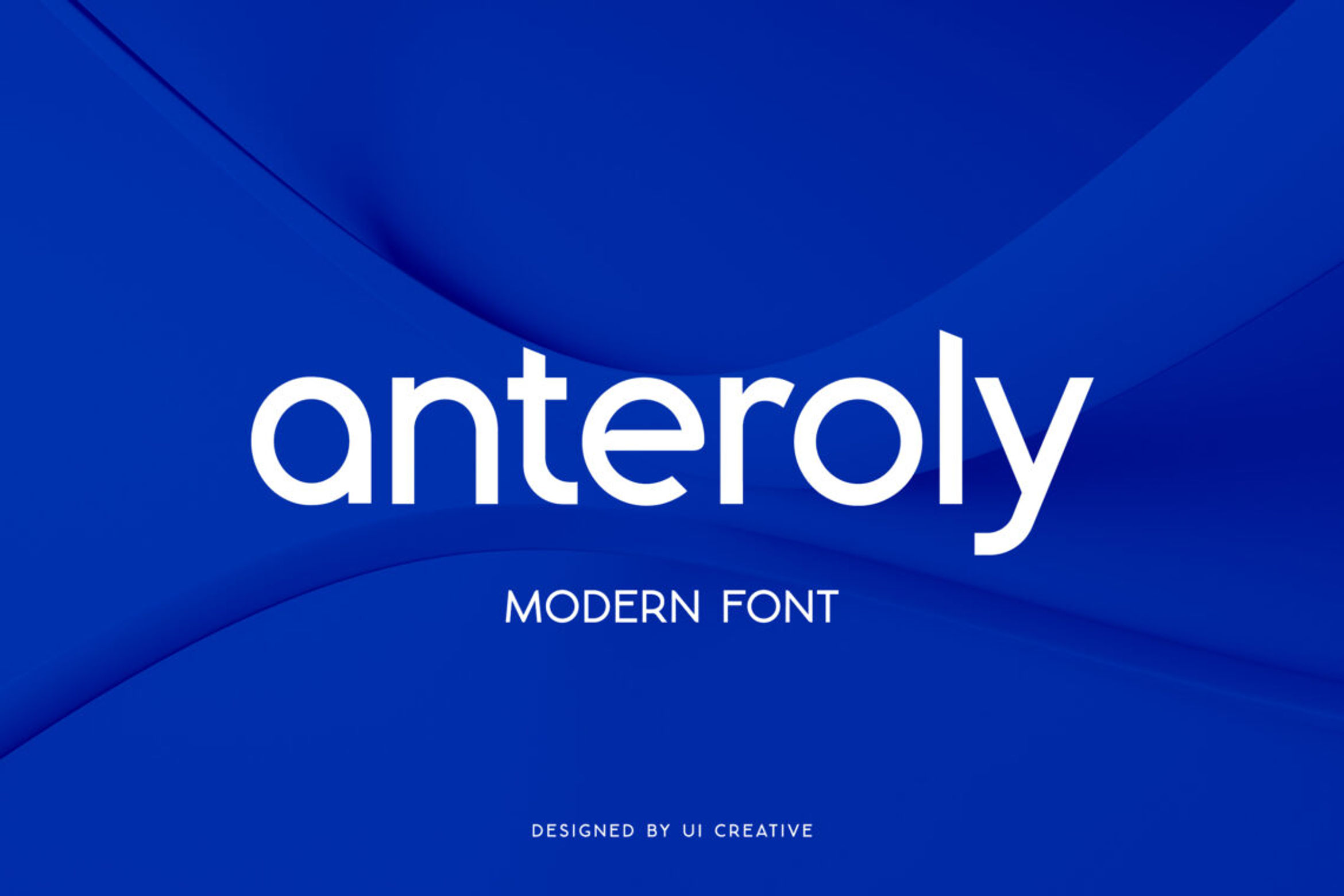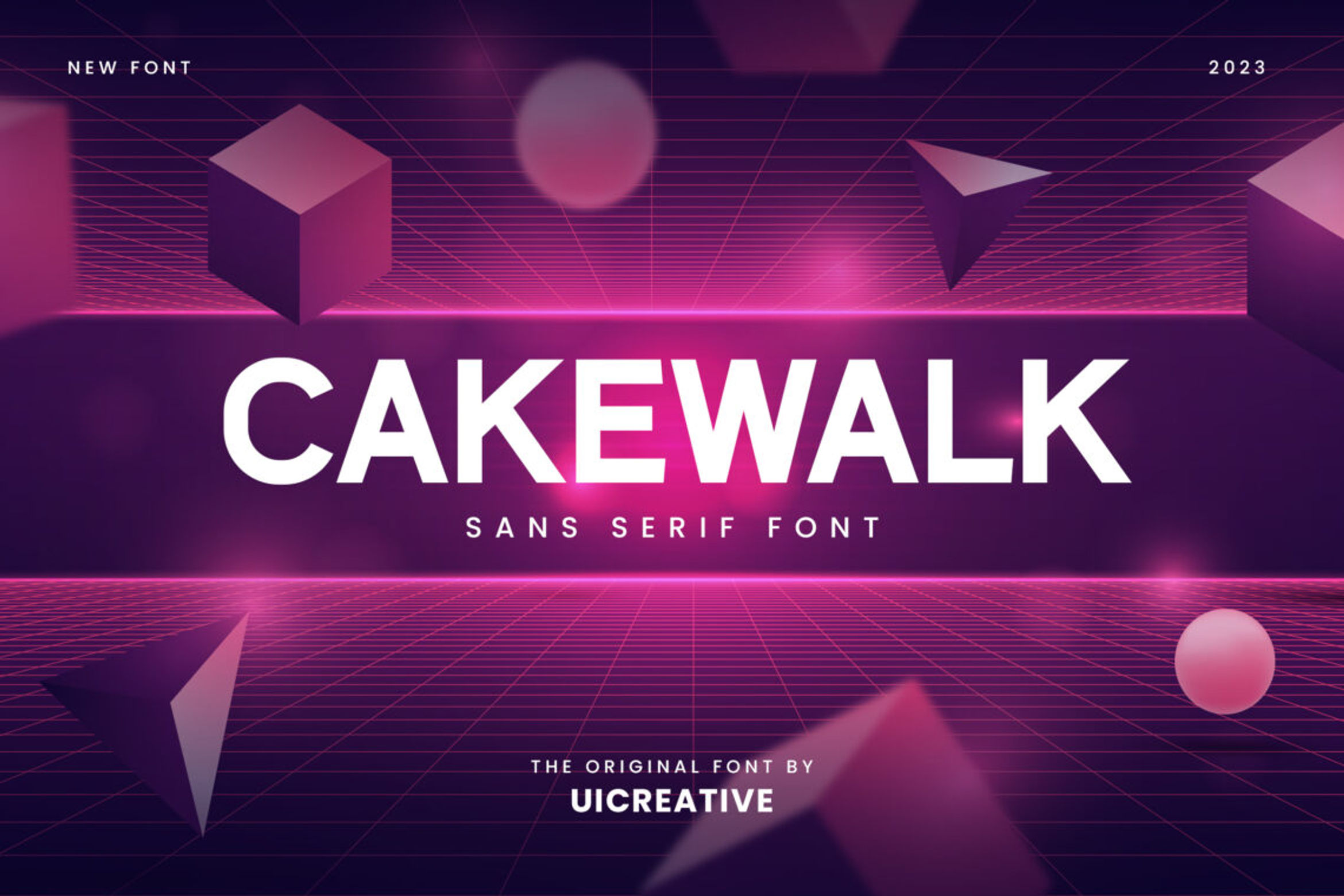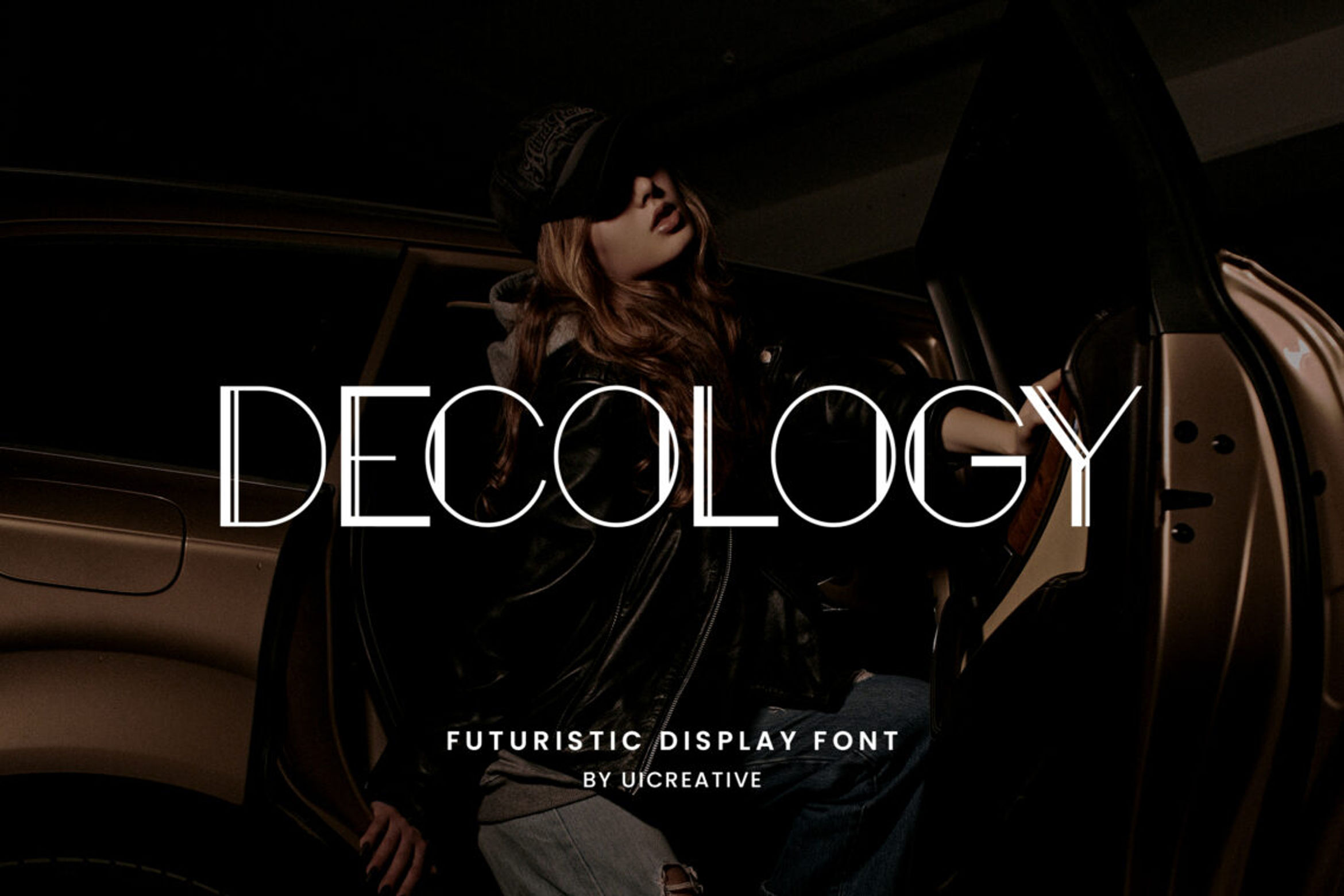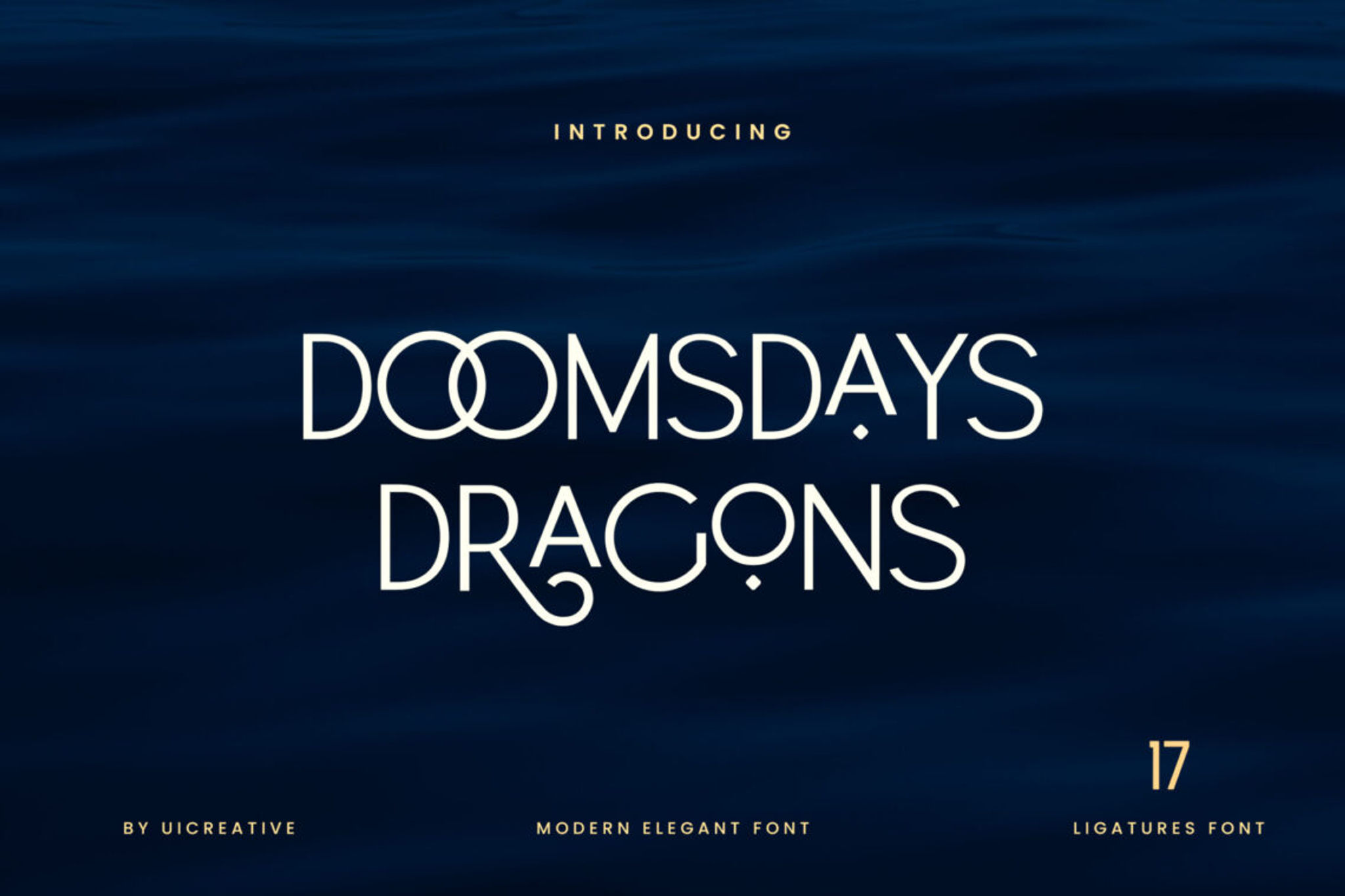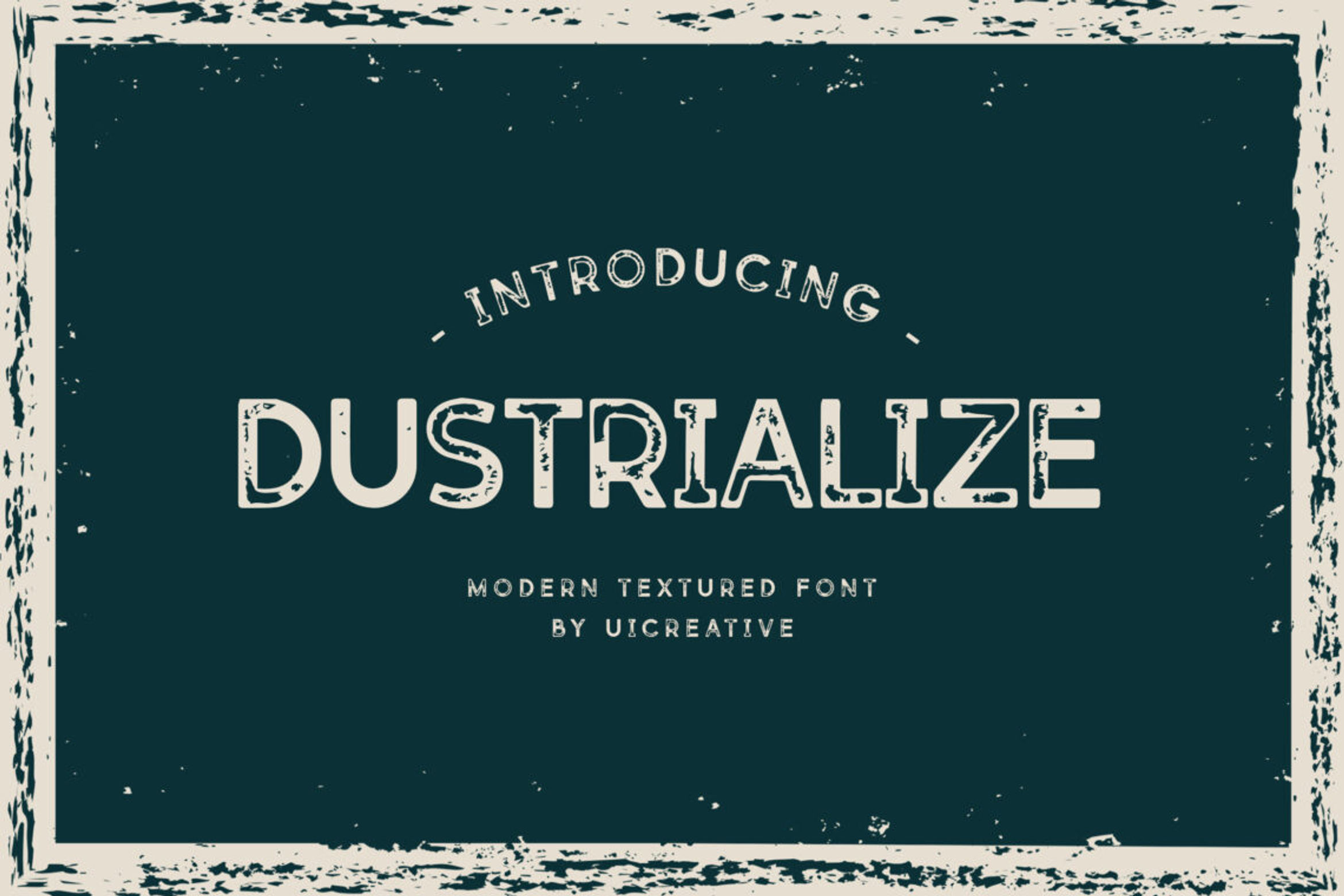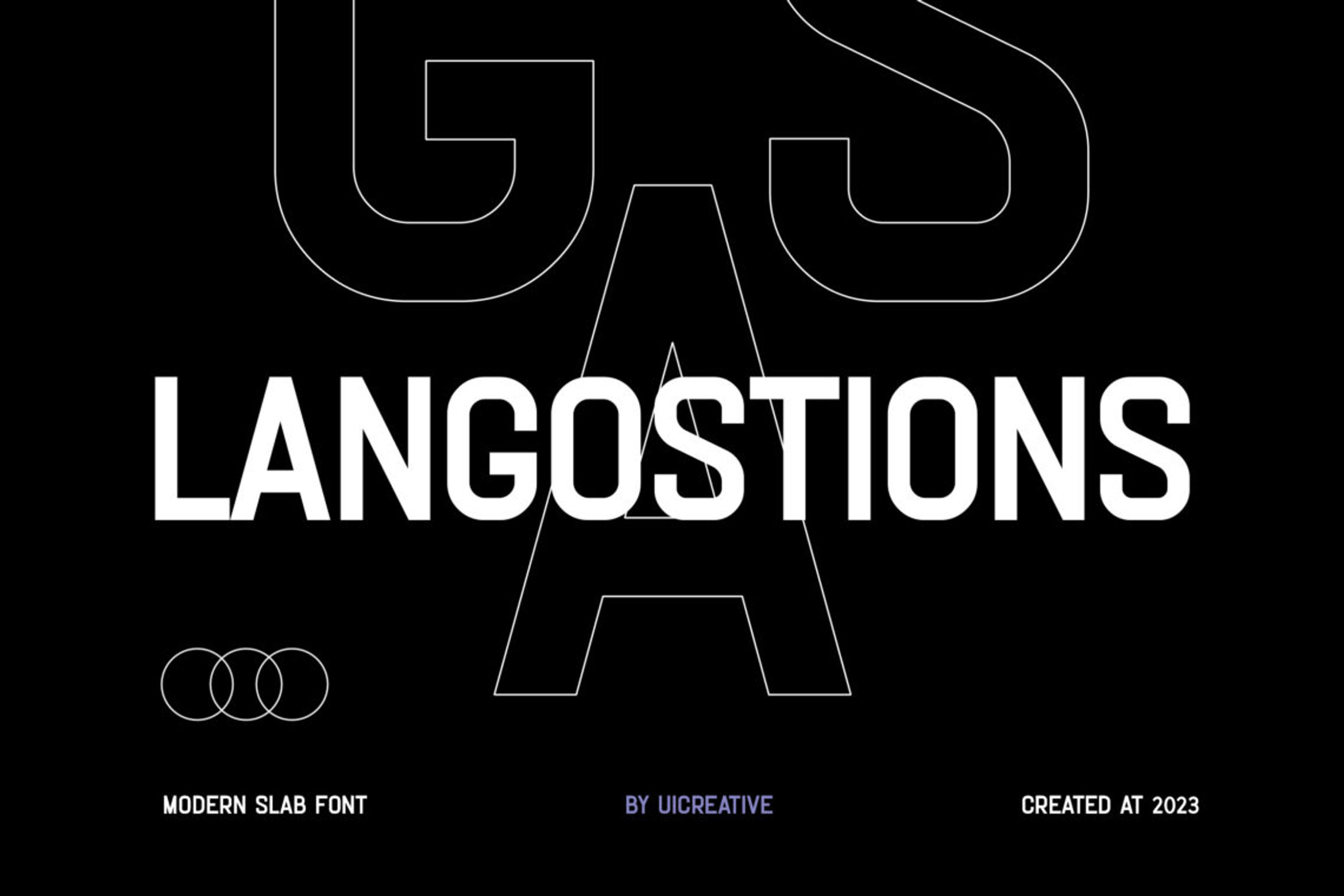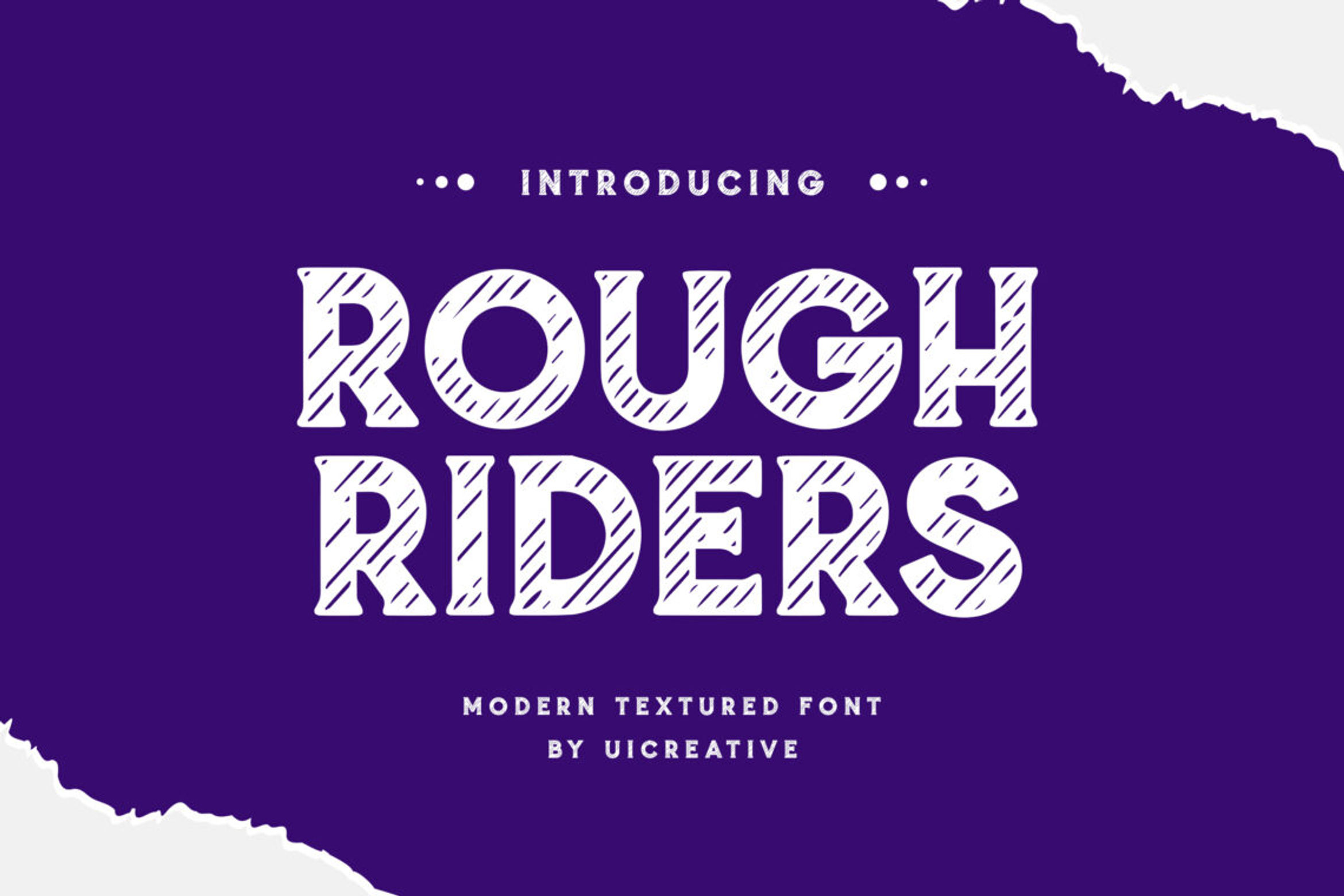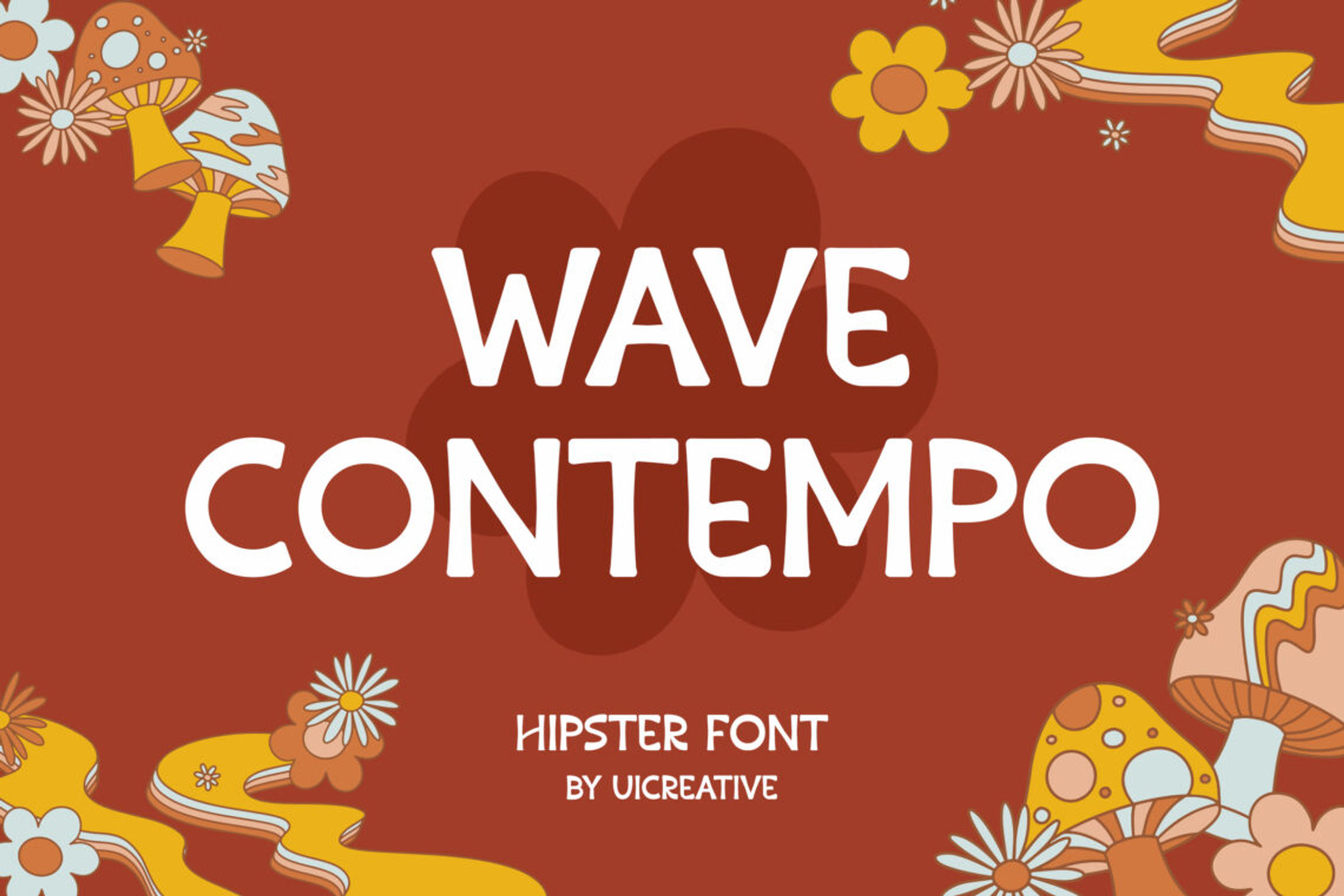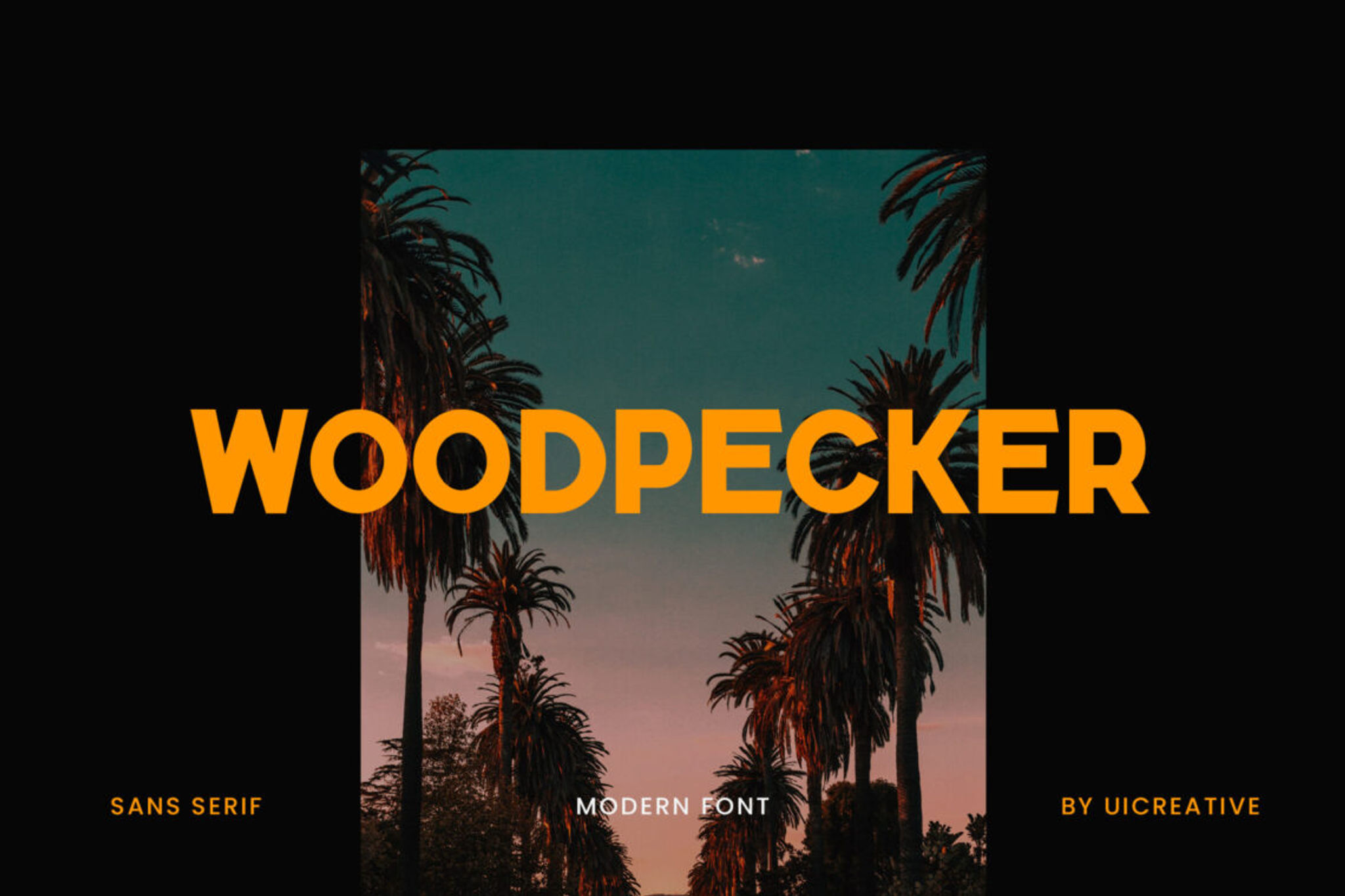
15 Best Summer Font 2023 For Your Projects
What comes to mind when you hear the word “Summer?” Whether it’s the pleasant weather, the joy you have at picnics and barbecues, or the ice cream. Imagine if you were able to transmit these cherished experiences through your artwork. Yeah, and that is also a beautiful summer vibes font you can use. This post compiles the 15 finest summer fonts for designers, bloggers, and photographers. Some of these fonts come with an abundance of incredible features and graphic components that increase the worth of your design resources.
15 Best Summer Font
What is a good summer font? We have the 15 best summer fonts you can use for your projects! What are they?
1. Bosky Evanish Luxury Sans Serif Font – Summer Font
Bosky Evanish Luxury Sans Serif Font
Get ready to take the design world by storm with this fun-loving summer font combination with both a script font and a humorous sans serif font. Both fonts are included in the package. Bosky Evanish has a gritty and eye-popping style provided by the marker brushstrokes, making it excellent for greeting cards, printing, branding, typography quotations, and other similar applications.
2. Rough Riders Modern Textured Font – Summer Font
Rough Riders Modern Textured Font
Here we have a natural modern textured summer font that has a summer mood look to go along with it. You’ll be able to create fantastic designs with the help of the Rough Riders font, which has a straightforward installation process and remarkable OpenType features. In addition, the ligatures included in this summer typeface will increase the visual worth of the final product you produce. This font can be used for various purposes, including posters, labels, logotypes, and book covers.
3. Dustrialize Modern Textured Font – Summer Font
Dustrialize Modern Textured Font
Belonging to the serif family of types, Dustrialize is a summer font that works wonderfully for high-end market audiences, movie titles, posters, café menus, magazines, YouTube covers, social media covers, and a wide variety of other applications. You get punctuation, numerals, and capital and lowercase letters included in this typeface.
4. Anteroly Modern Sans Serif Font
Anteroly Modern Sans Serif Font
A lovely script and powerful, attractive sans are included in this font combination designed with the summer season in mind. Using this font will make your creations look more elegant and sophisticated. It includes capital and lowercase letters, digits, punctuation, swashes, ligatures, and other specialized characters. This typeface can be used for various things, including logos, branding, quotations, etc.
5. Aphrodite Elegant Sans Serif Font
Aphrodite Elegant Sans Serif Font
Aphrodite is a handwritten summer typeface that works wonderfully for summer vibes font. It comes with standard line spacing and is part of the sans-serif family of types. This typeface can be installed quickly, efficiently, and scaled to a significant (display/poster) size. This typeface can be used for various things, including signatures, greeting cards, posters, flyers, quotes, photographs, postcards, editorial work, and branding.
6. Ambrotype Modern Classy Sans Serif Font
Ambrotype Modern Classy Sans Serif Font
Are you looking for the ideal summer font for memorable summer quotations, handwritten messages, and lettering? Then you need to have a look at this fun summer typeface. The font known as Ambrotype is handwritten and can be used for various purposes. You will need professional design software like Adobe Illustrator, Photoshop, or InDesign to use the stylistic alternates included with this typeface.
7. Langostions Modern Slab Font
Langostions Modern Slab Font
This font is a collection of changeable display serif summer fonts suited for various designs. We are pleased to introduce Rische. You’ll be able to quench your creative thirst with the help of this typeface that has a summer vibes font.
8. Cakewalk Sans Serif Font
Cakewalk Sans Serif Font
This sans serif summer typeface works wonderfully for pictures on social media platforms, branding, postcard designs, print graphics, logos, and many other applications. The typeface was meticulously crafted to provide a workhorse font that is versatile enough to add value to various projects. In addition, the artistic flair of this typeface and its pixel-perfect precision make it an excellent option for selecting when you want to create summer vibes with your creations. The typeface comprises not just the fundamental characters but also many contextual alternates.
9. Decology Futuristic Sans Serif Font
Decology Futuristic Sans Serif Font
It is time to introduce the modern multipurpose handmade script font, Decology. This font is ideal for various designs, including children’s books, quotes, headings, logos, titles, and more. This sans-serif font with standard line spacing is part of the sans-serif family of types and may be scaled to fit any sized text.